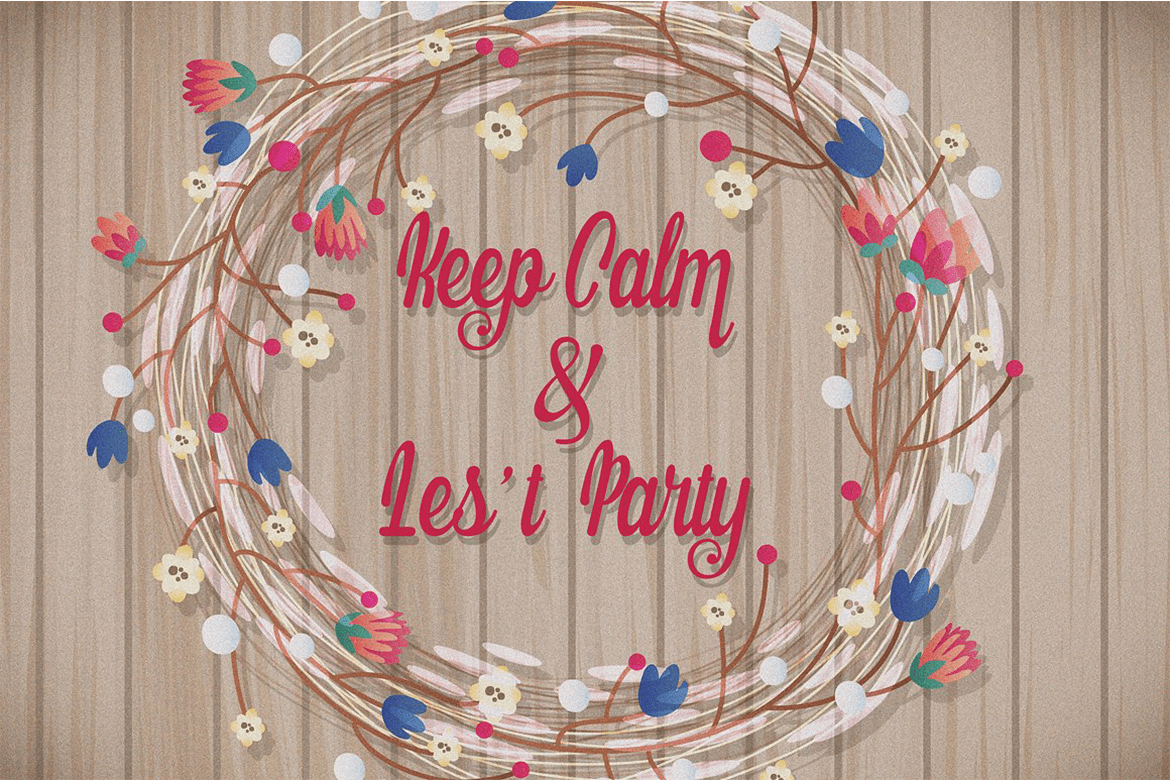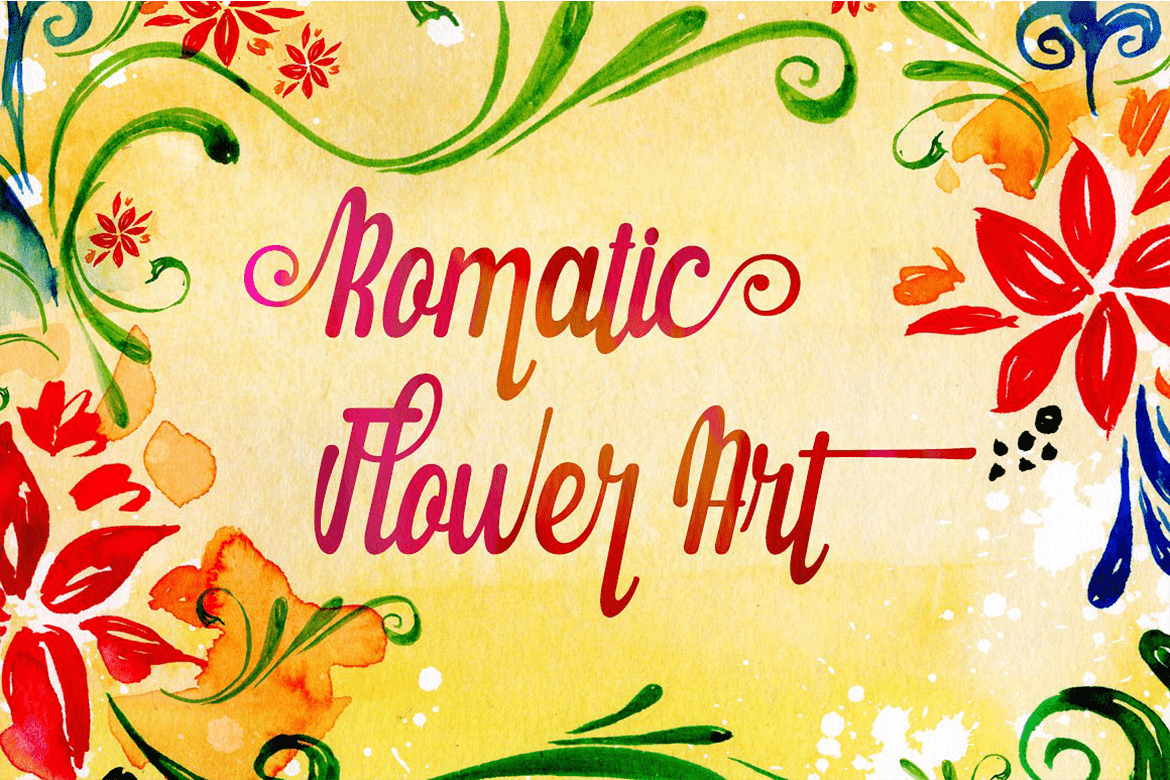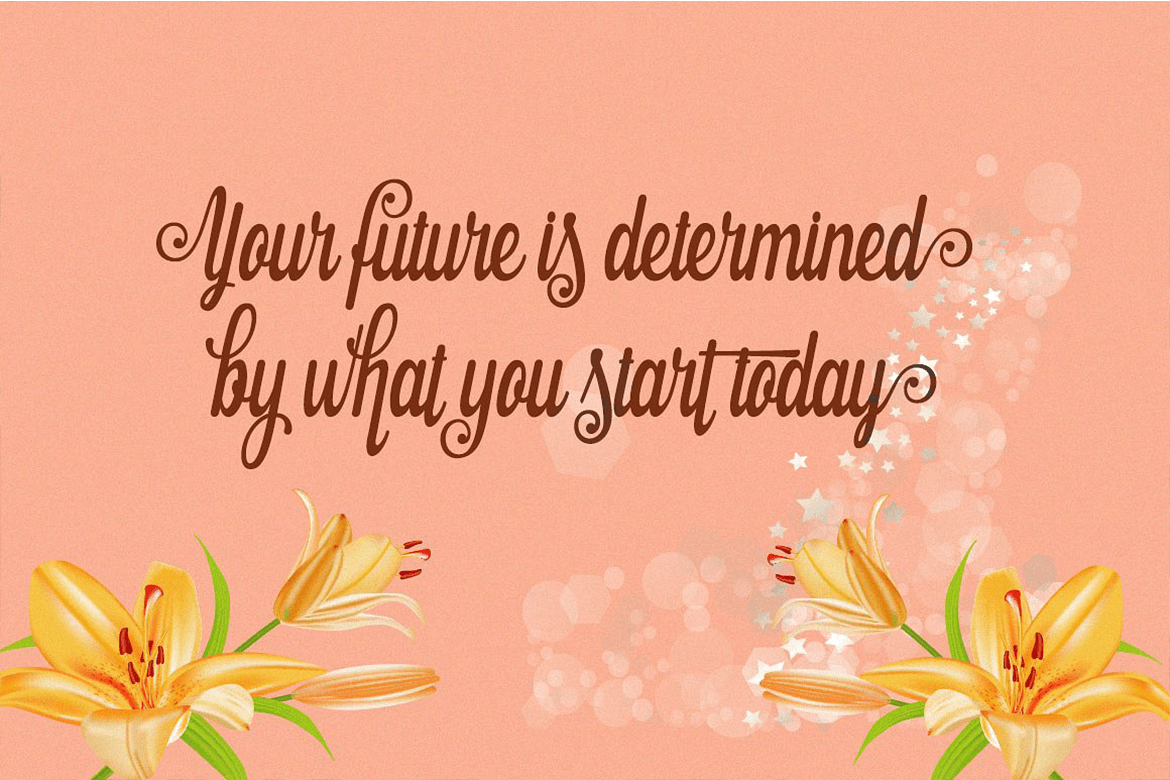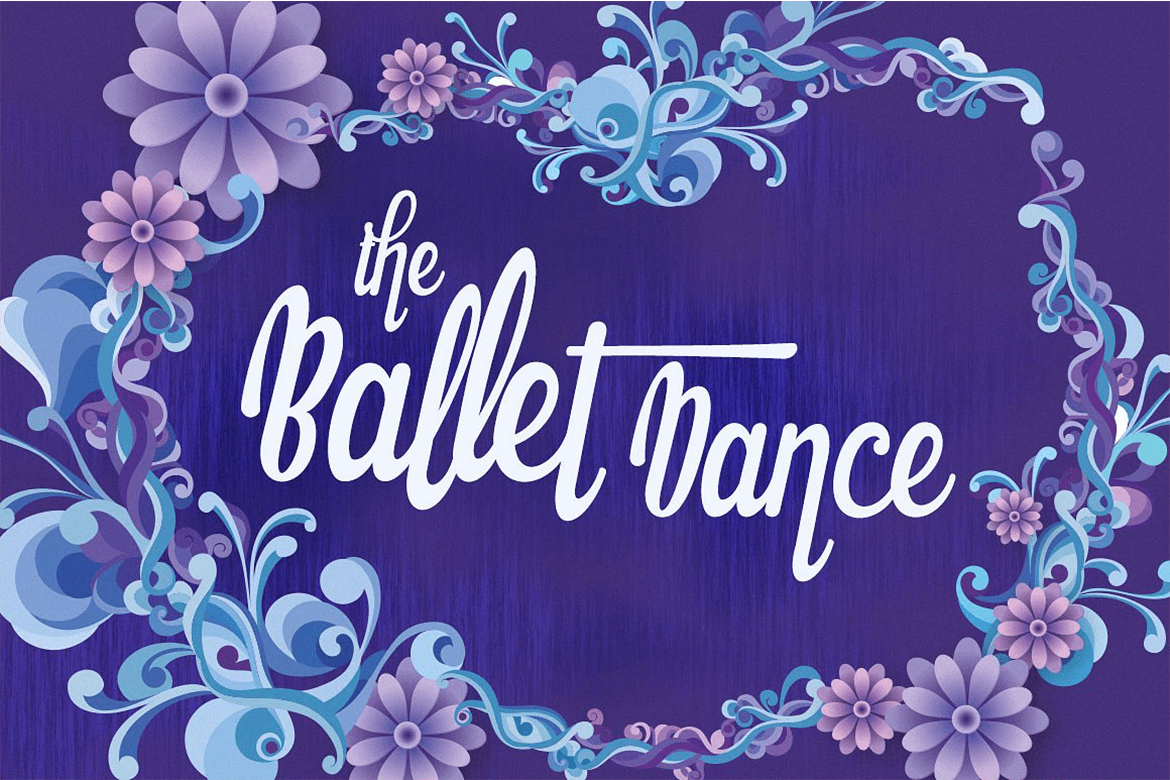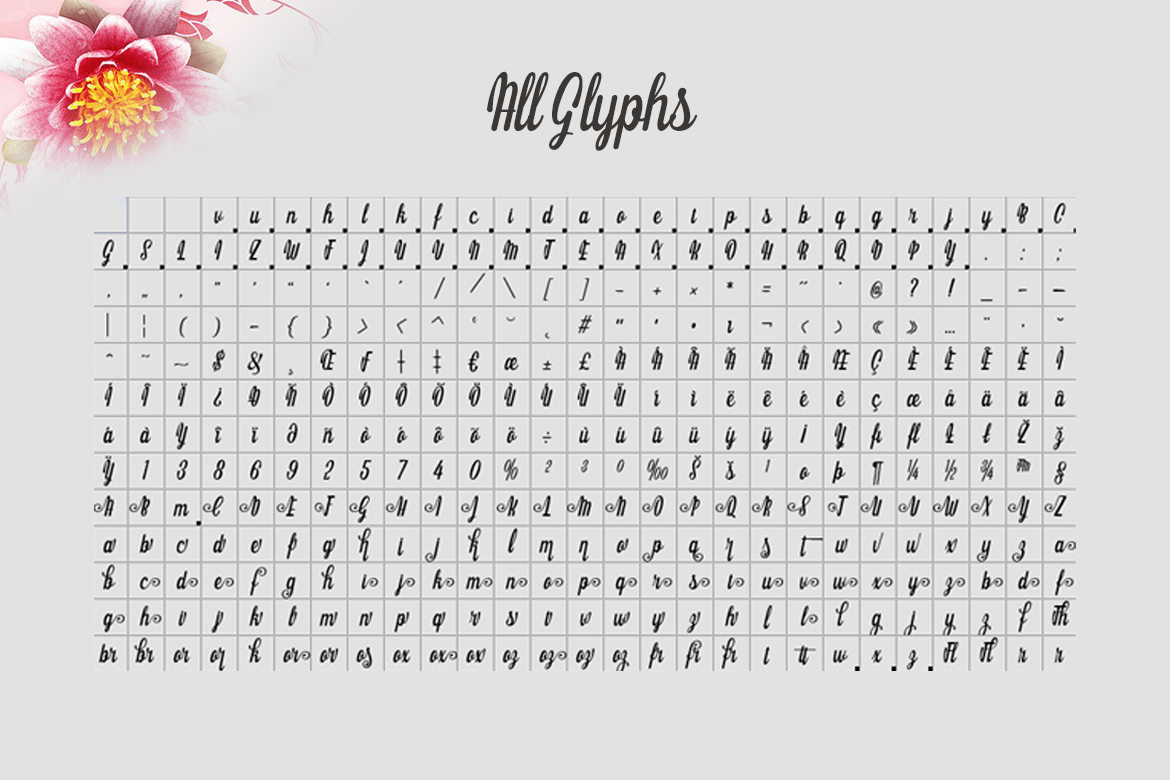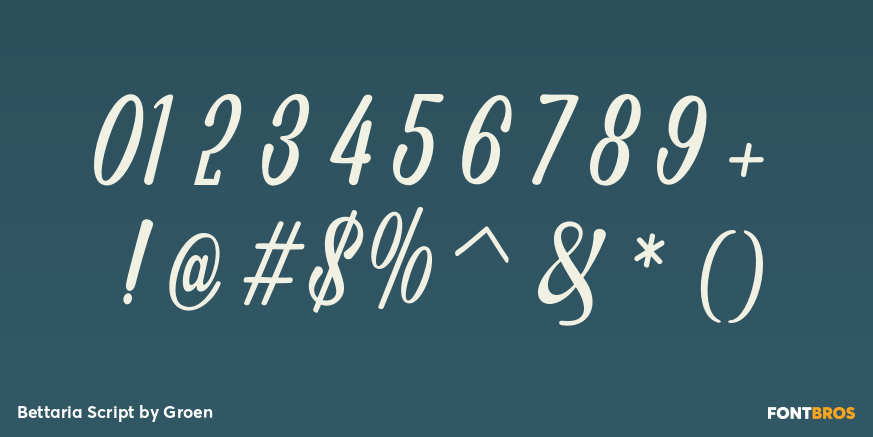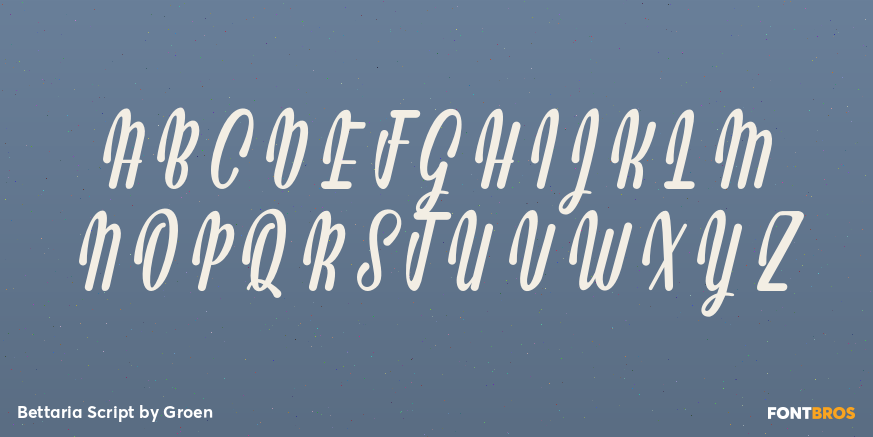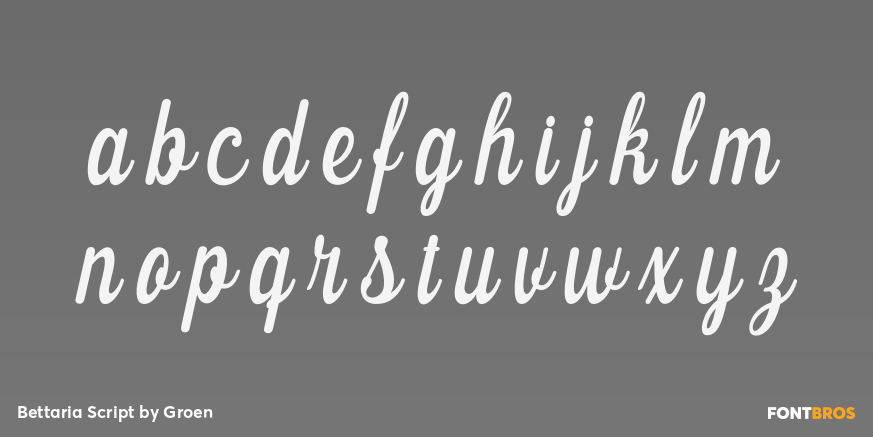
Bettaria Script
Font Family by Groen Studio
Stylish, hand drawn, Bettaria Script merges a copperplate sensibility with the dancing baseline of contemporary calligraphy for a modern, elegant touch. Bettaria script features 352+ glyphs and 136 alternate characters, including initial and terminal letters, alternates, ligatures and multiple language support.